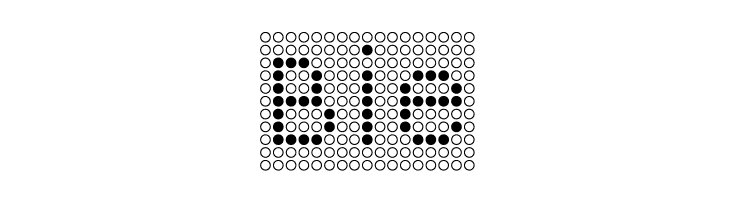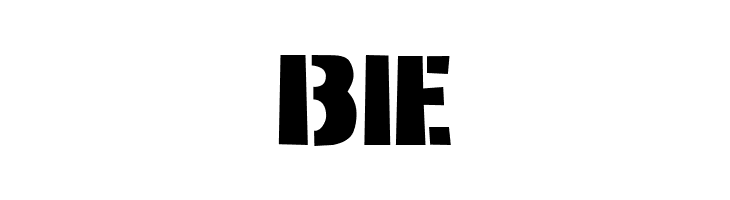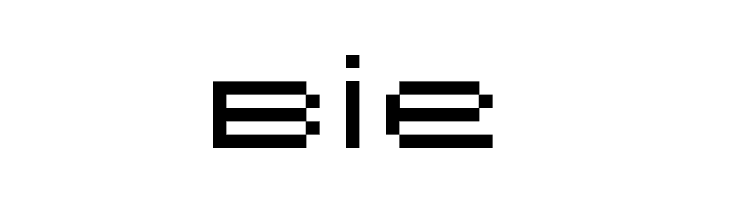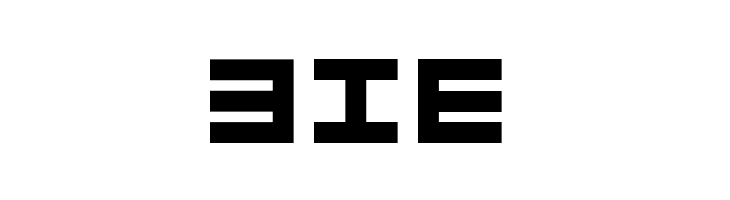
A decorative dot matrix font with a retro digital display style.
A bold, stencil-like font with geometric shapes and cut-out sections.
A bold, jagged font with a dynamic, textured appearance.
A pixelated, grid-based font with a retro digital style.
A geometric, pixelated font with a retro digital aesthetic.
A pixelated, blocky font with a retro digital aesthetic.
A bold, geometric font with a pixelated, digital aesthetic.
A modern, italic font with a sleek, condensed design and consistent stroke width.
A bold, geometric font with a futuristic, digital aesthetic.